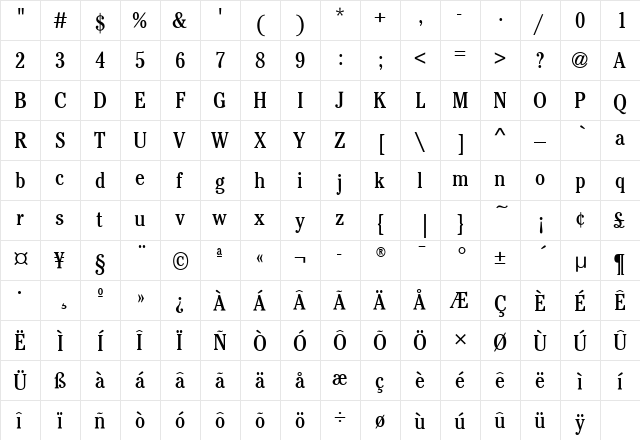
CheltenhamBookCdITC Medium
| Foundry | E+F Designstudio. ITC Cheltenham is a registered trademark of International Typeface Corporation |
Design Context for CheltenhamBookCdITC Typeface
CheltenhamBookCdITC takes a measured approach to typography — its balanced proportions and neutral character make it a reliable workhorse for both digital and print work.